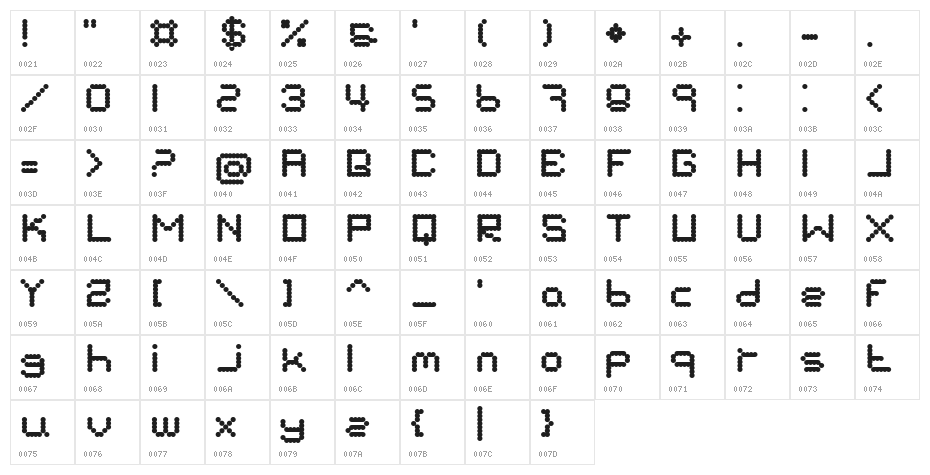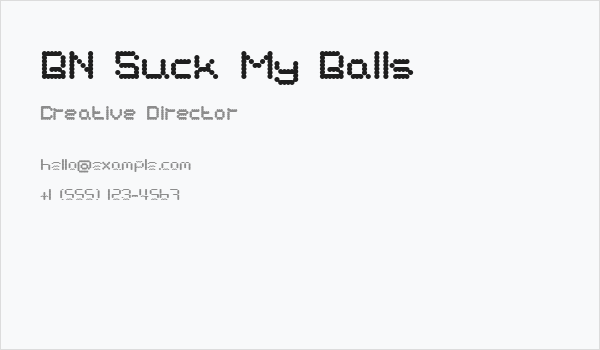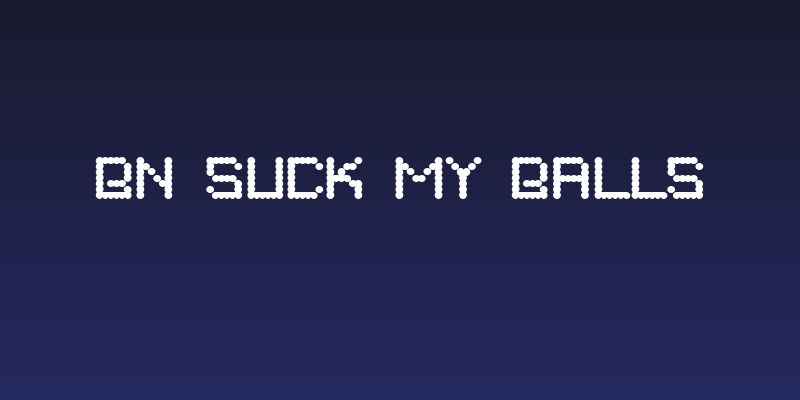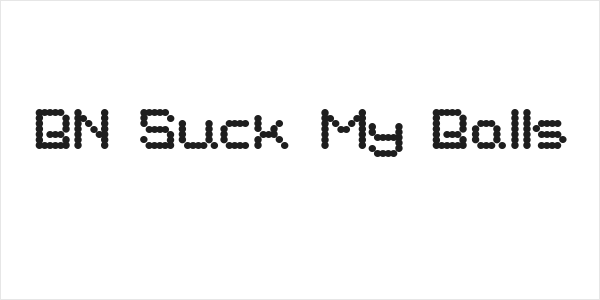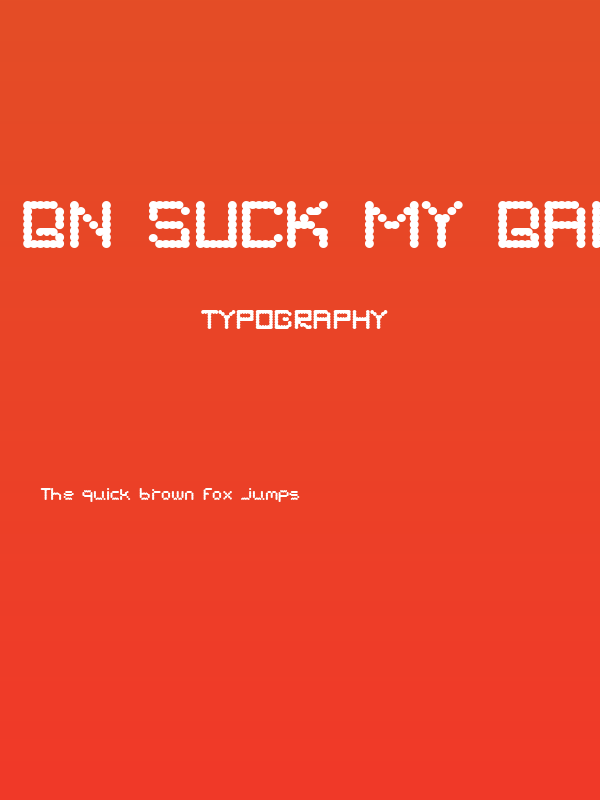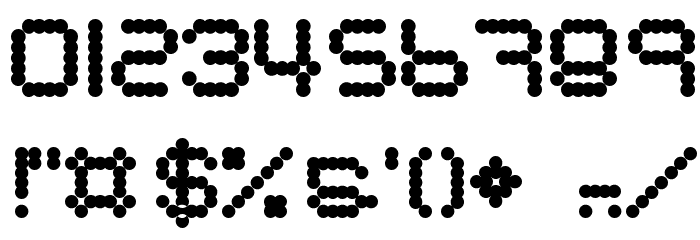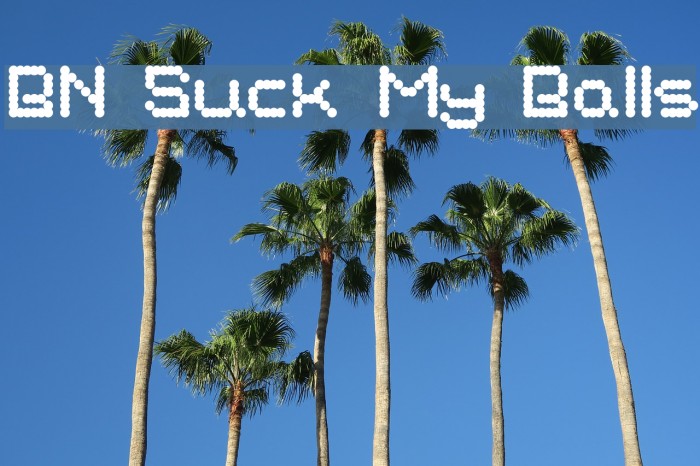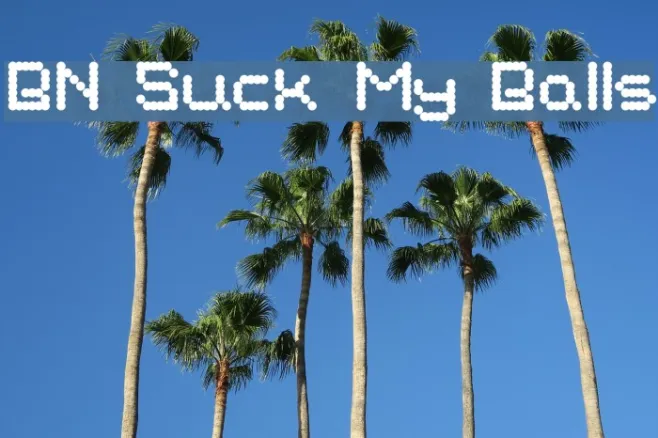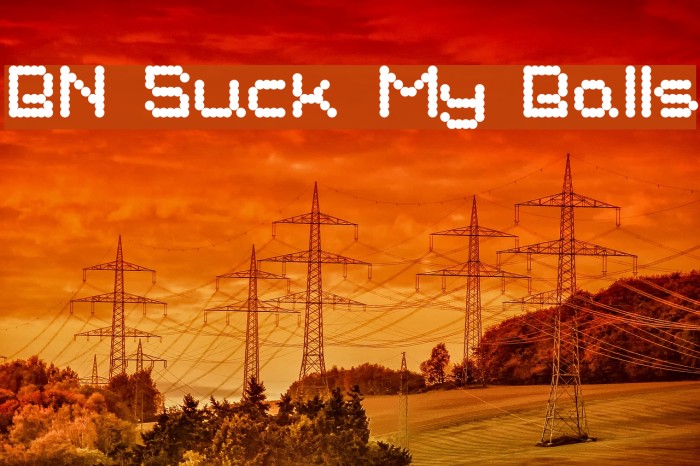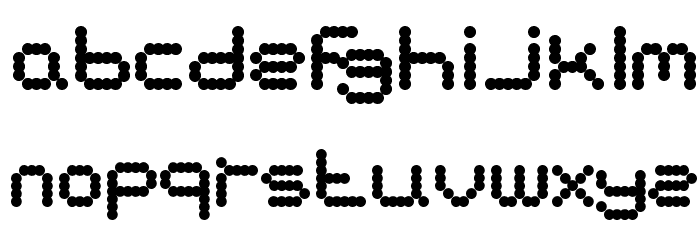
BN Suck My Balls Font
BN Suck My Balls Description
This font features a unique design composed entirely of small, evenly spaced dots forming each character. The letters and numbers are constructed in a grid-like pattern, giving them a digital or pixelated appearance. The style is consistent across uppercase, lowercase, numerals, and special characters, maintaining a cohesive look. The rounded edges and uniform dot size contribute to a playful and modern aesthetic. This font stands out due to its distinctive dotted structure, making it ideal for creative and eye-catching designs.
| Use Case | Logos, Headlines, Posters |
| Proposed Projects | Ideal for digital art projects, tech-themed designs, playful branding, and modern advertisements. |